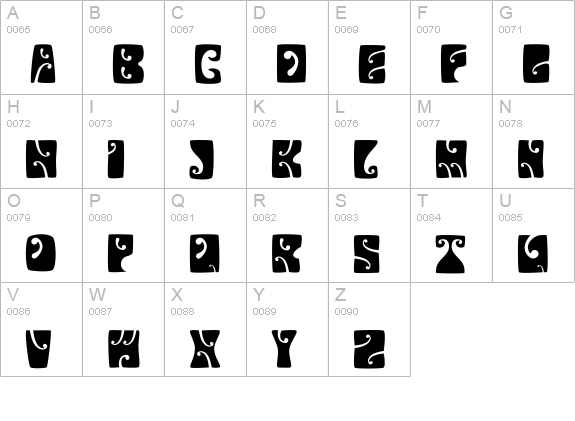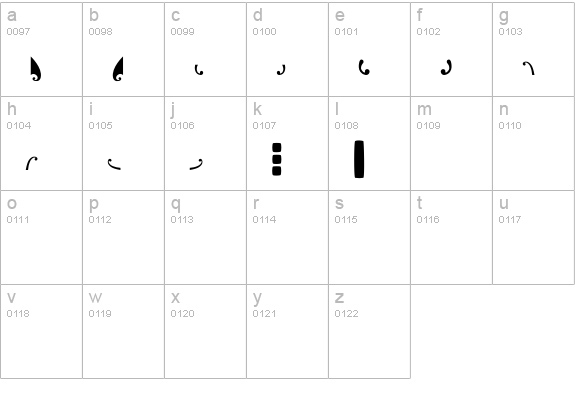
Psychedelic-FillmoreWest Font Details
The Psychedelic-FillmoreWest font is a groovy and retro typeface that captures the essence of the 1960s counterculture movement. With its vibrant colors, swirling patterns, and whimsical shapes, this font exudes a sense of freedom and creativity. Each letter is uniquely designed to evoke a sense of nostalgia for the colorful and expressive art of the era. This font is freely available to download at FontsMarket.com, allowing you to bring a touch of vintage flair to your projects with ease. Whether you're creating posters, album covers, or party invitations, the Psychedelic-FillmoreWest font is sure to make a bold statement and capture the spirit of the psychedelic movement. Let your creativity run wild with this free-spirited and eye-catching typeface.